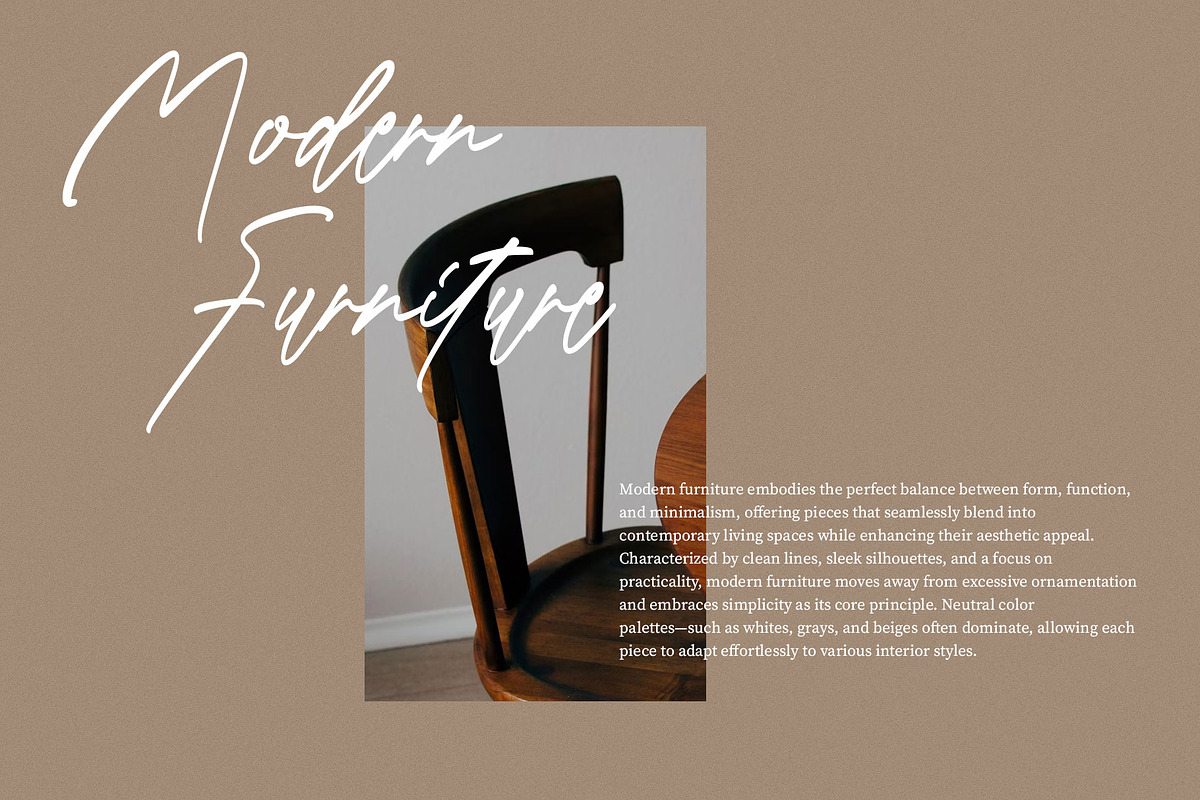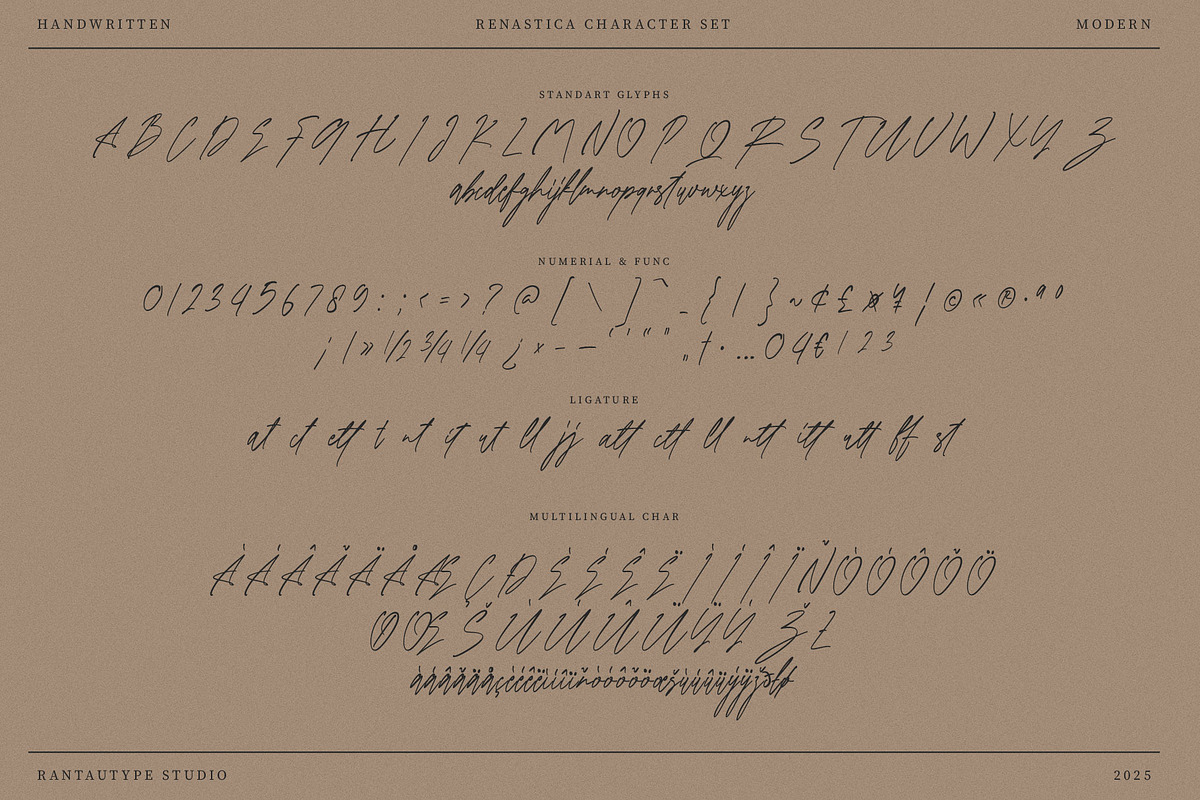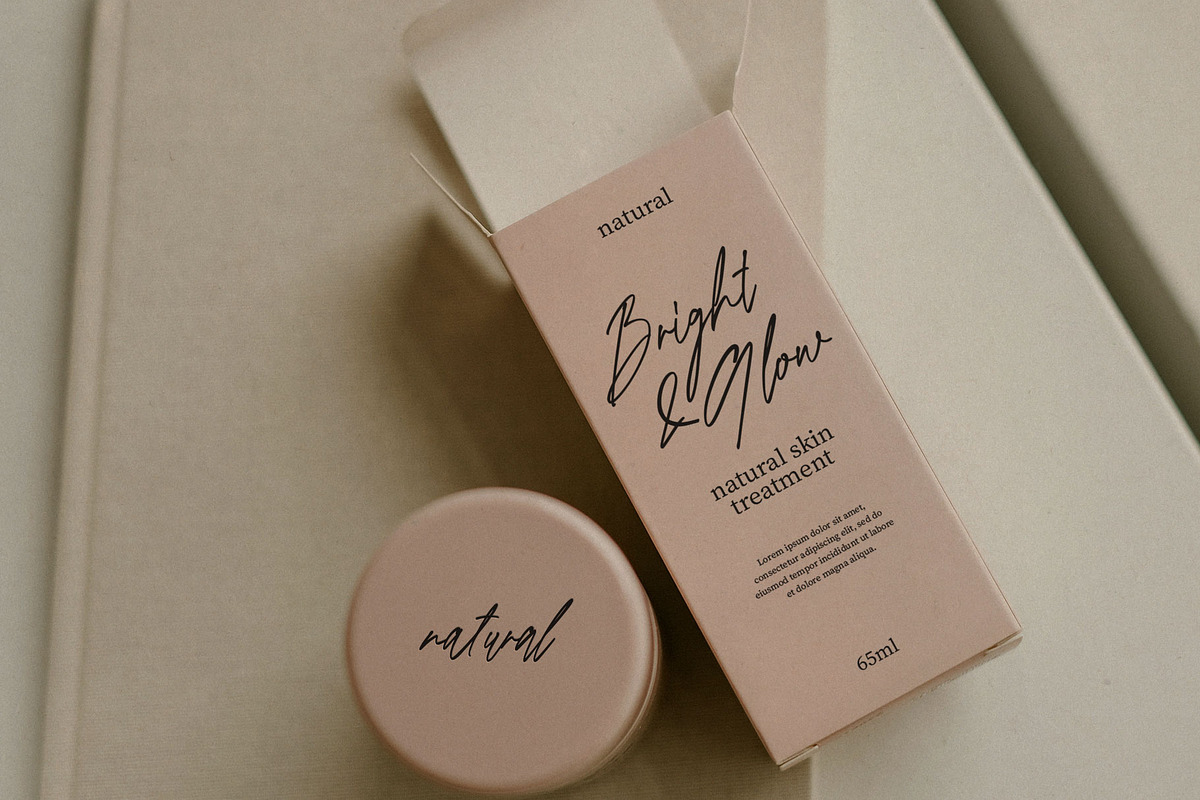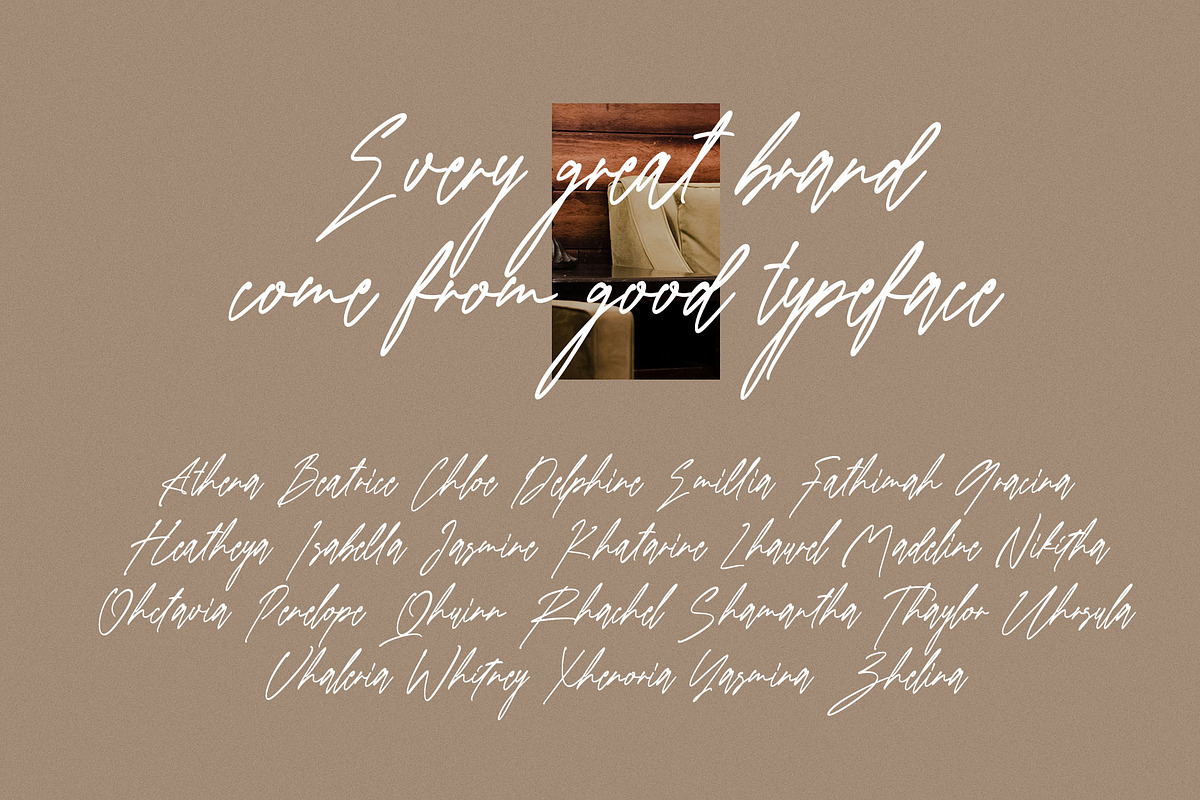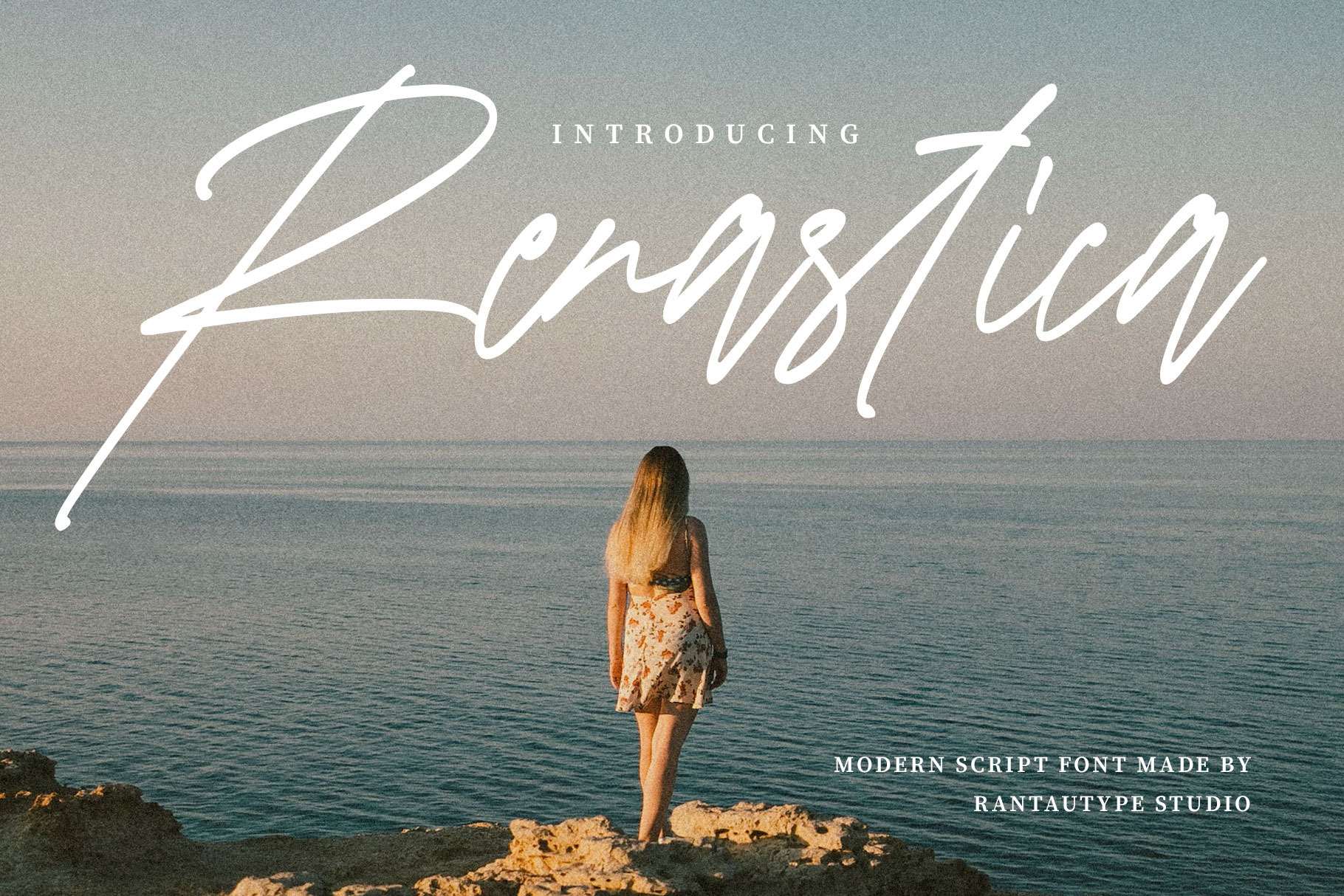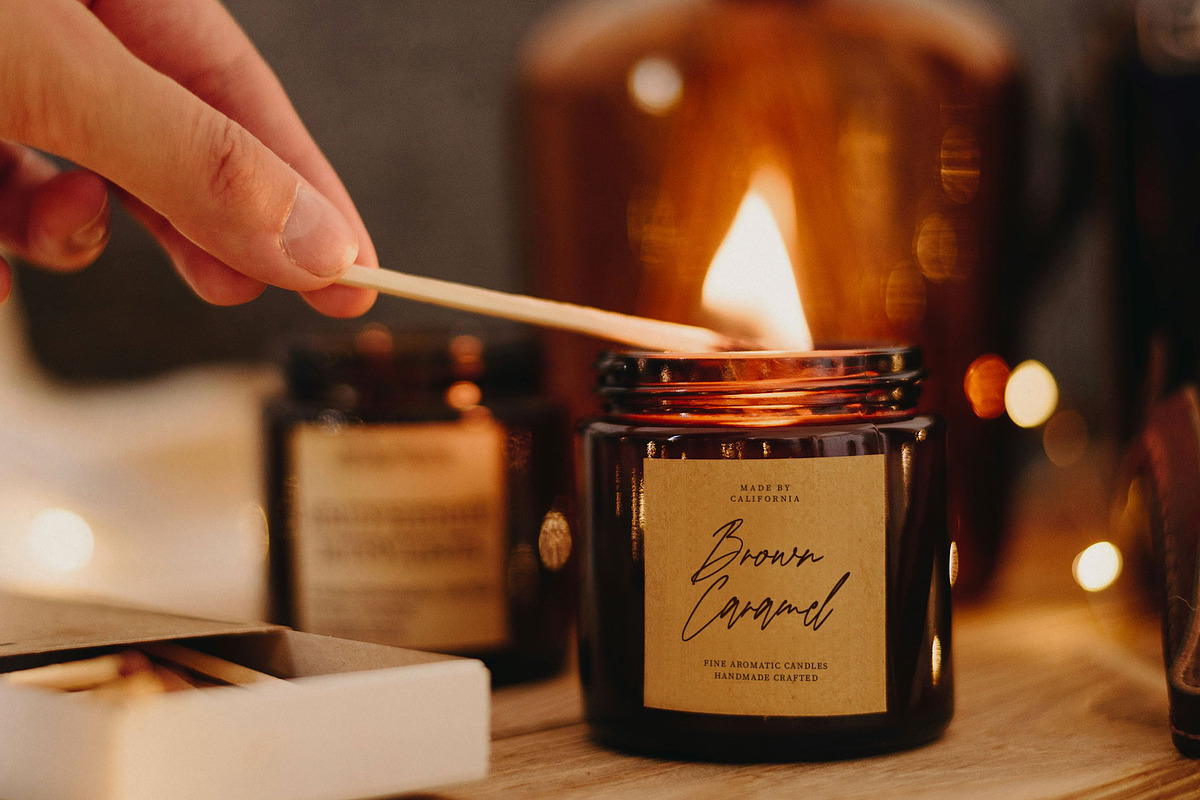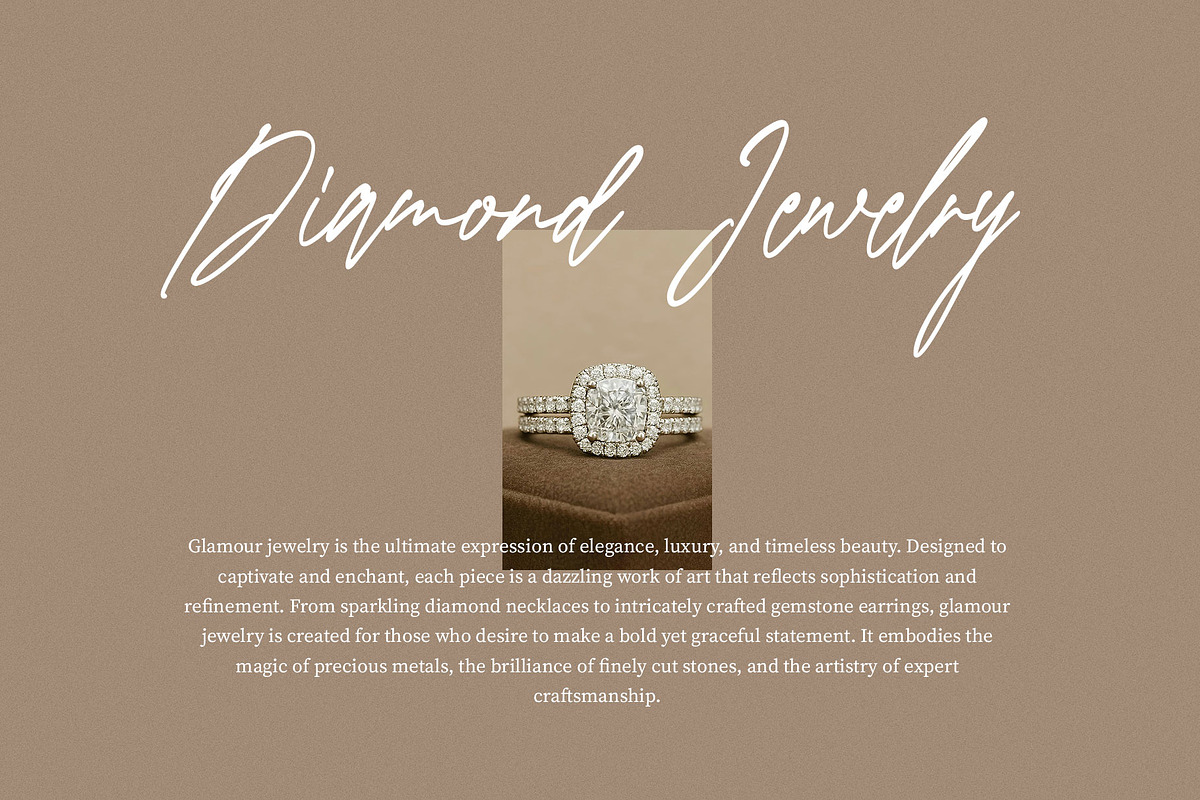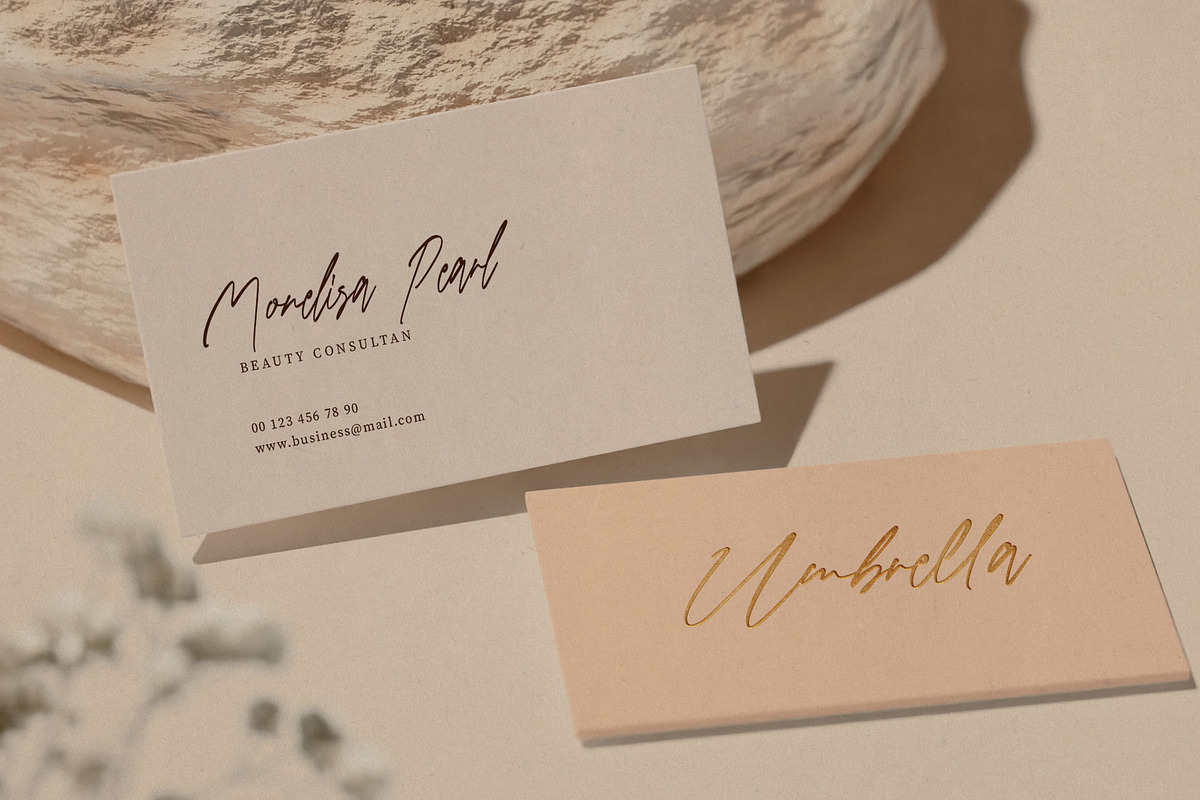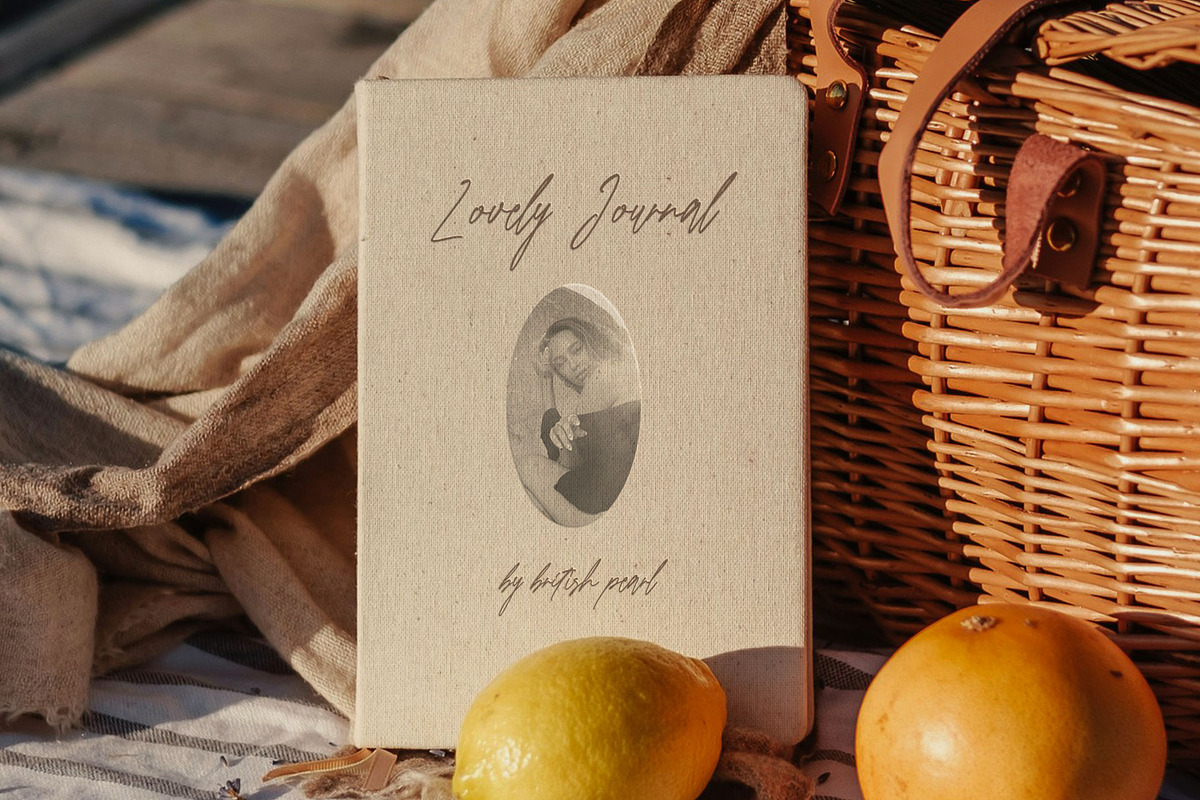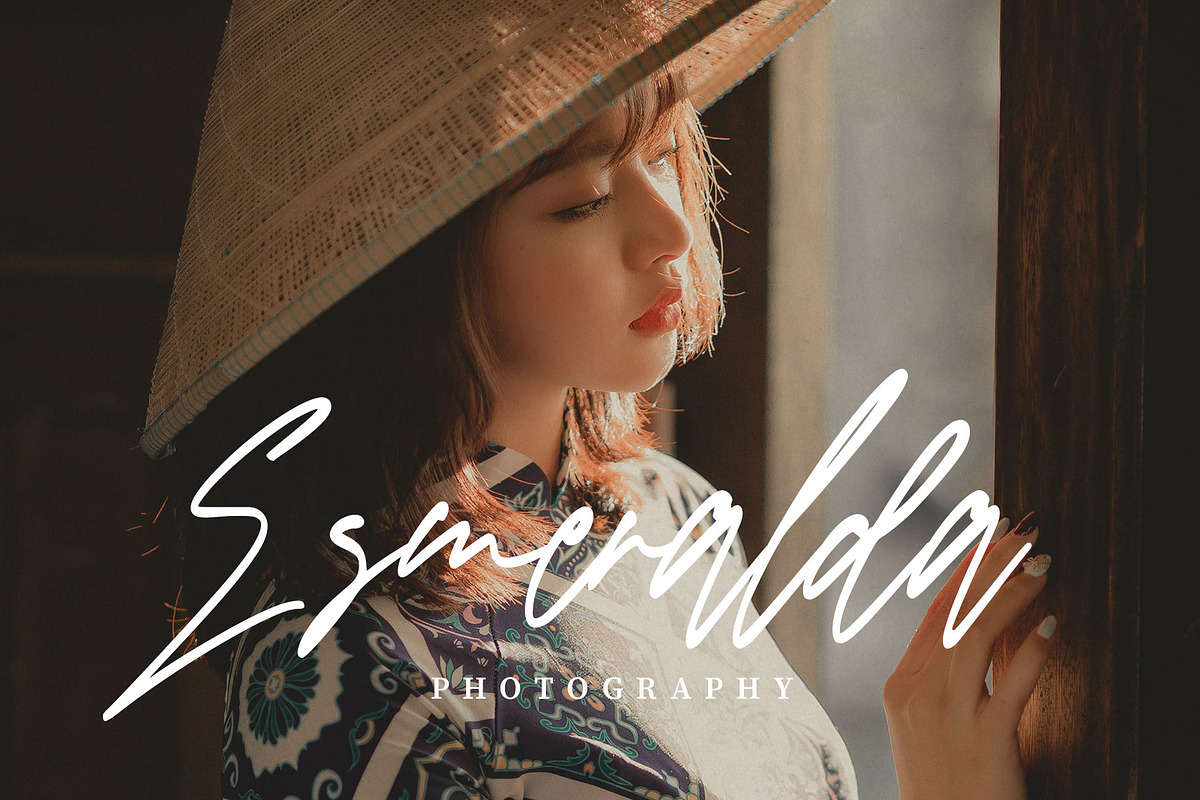
Renastica Modern Script Font
Renastica is modern handwritten font made with love by rantautype studio. Renastica is a perfectly choice for any creative endeavor, creating, modern, lifestyle design such as logotype, title, cover, branding, invitations, wedding designs, display and magazine, social media posts, advertisements, printed quotes, product packaging, corporate brand, product designs, labels, photography, watermarks, special events and any other project with modern touch.
- Standart Glyphs
- Alternate and ligature
Fonts include Multilingual Character for: Afrikaans, Albanian, Asu, Basque, Bemba, Bena, Breton, Chiga, Cornish, Dutch, English, Estonian, Filipino, Finnish, Friulian, Galician, Gusii, Indonesian, Irish, Italian, Kabuverdianu, Kalenjin, Kinyarwanda, Luo, Luxembourgish, Luyia, Machame, North, Oromo, Portuguese, Quechua, Romansh, Rombo, Rundi, Rwa, Samburu, Sango, Sangu, Scottish, Gaelic, Sena, Shambala, Shona, Soga, Somali, Spanish, Swahili, Swedish, Swiss, German.